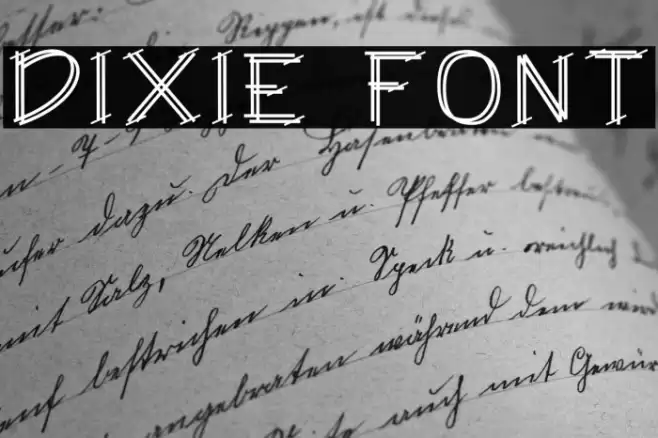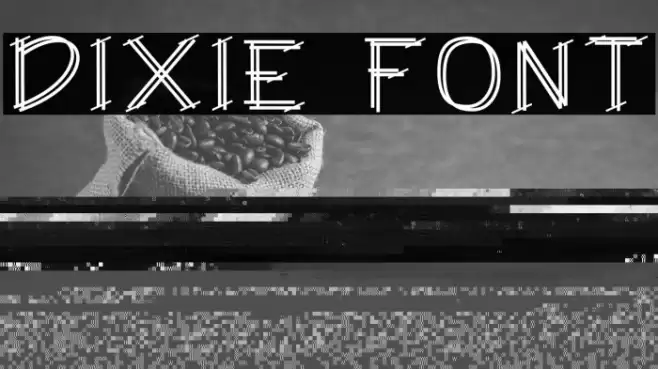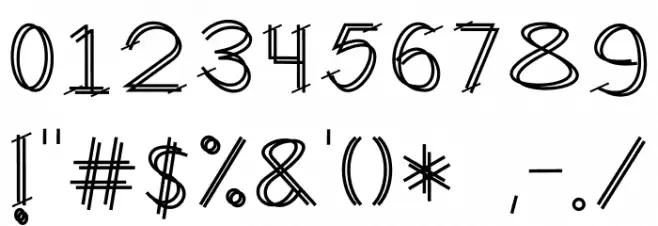
DIXIE Font
DIXIE Description
This font features a unique and decorative style with a hand-drawn appearance. Each character is outlined with a double line, giving it a bold and striking look. The letters are slightly irregular, adding to the handcrafted feel. The strokes are consistent in width, and the overall design is playful yet structured. The font includes both uppercase and lowercase letters, numbers, and a variety of special characters. Its distinctive style makes it suitable for creative and artistic projects.
A decorative, hand-drawn font with double-line outlines and a playful style from Regular fonts.
- Proposed Projects: Ideal for posters, invitations, artistic branding, and any project requiring a creative and eye-catching typeface.
- Use Case: Headlines, Logos, Artistic projects